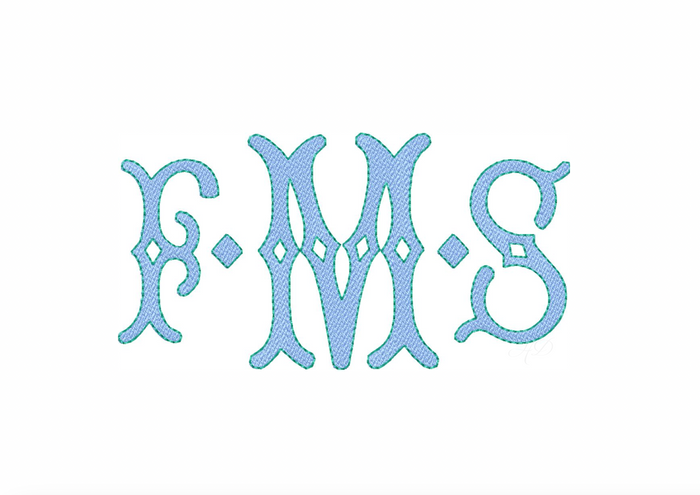
5x7 Large Avery Fill Outline Embroidery Font Package
Unlock your creativity with the 5x7 Large Avery Fill Outline Embroidery Font Package. This unique two-color fill stitch font offers a stunning contrast with outline stitches, featuring uppercase and lowercase letters A-Z, numbers 0-9, and an accent dot to add flair to your embroidery projects.